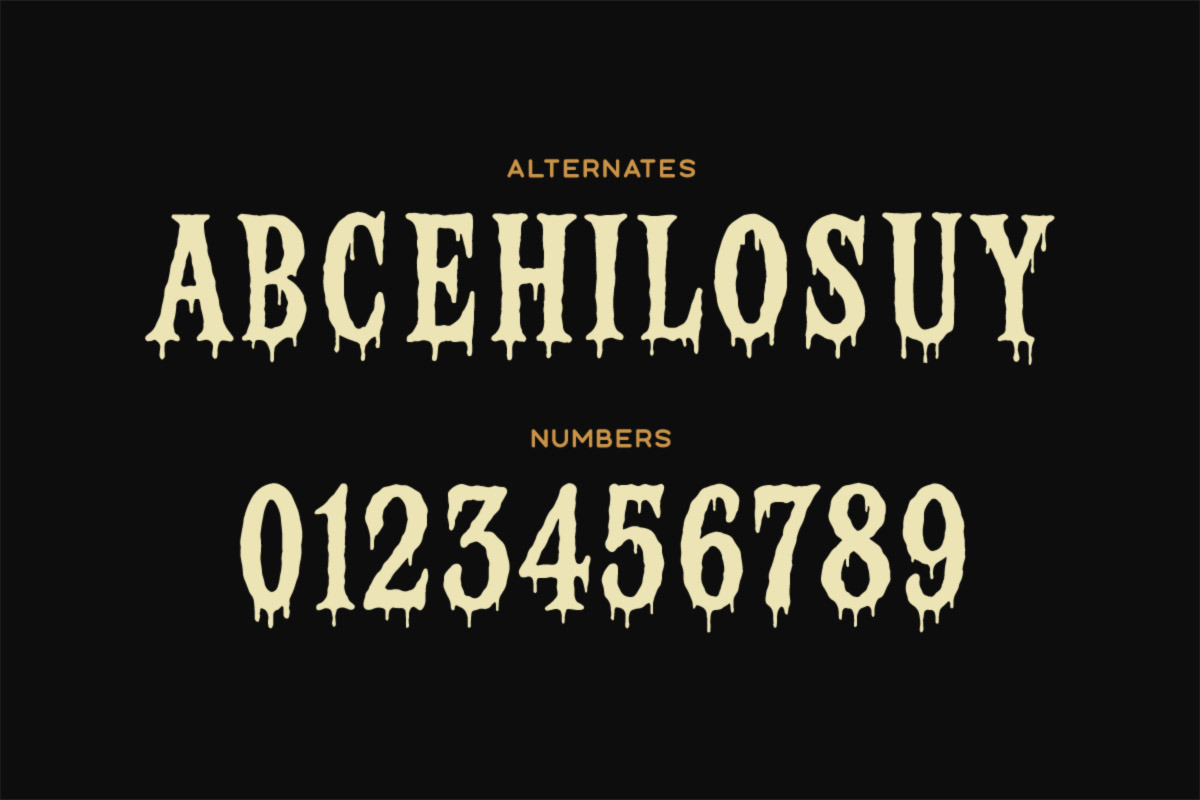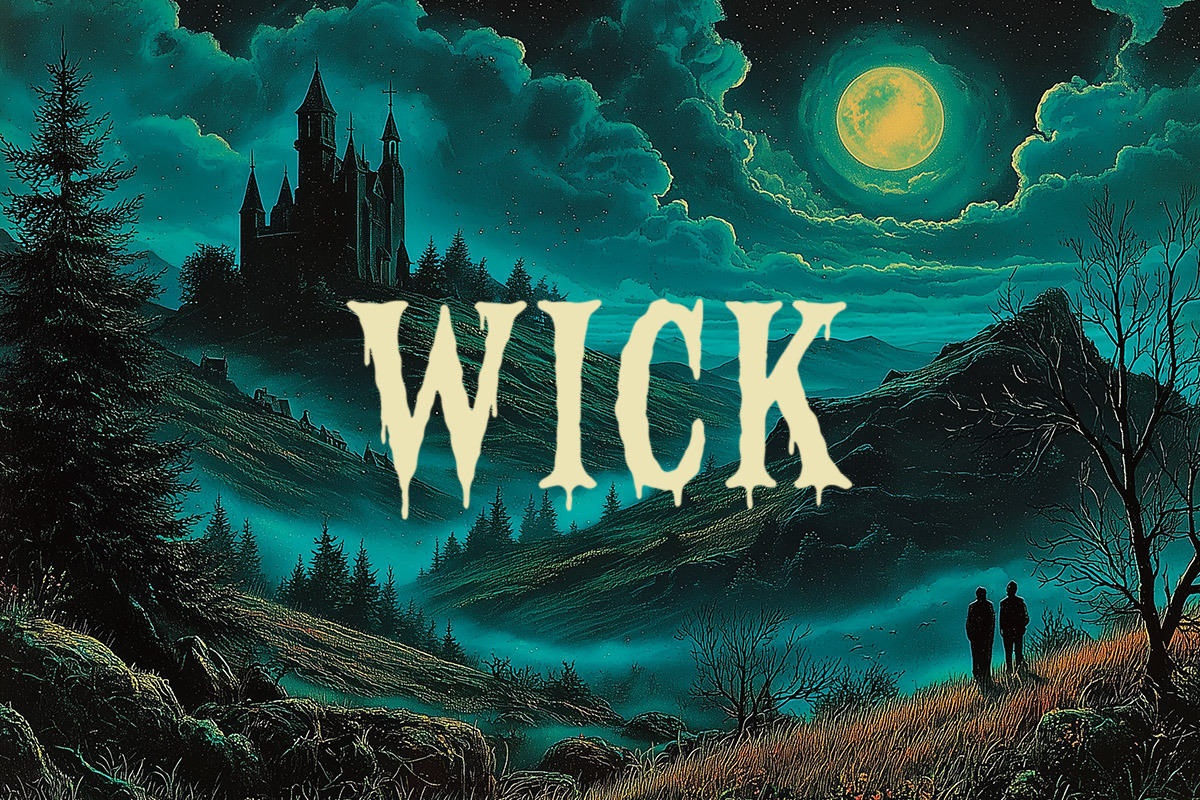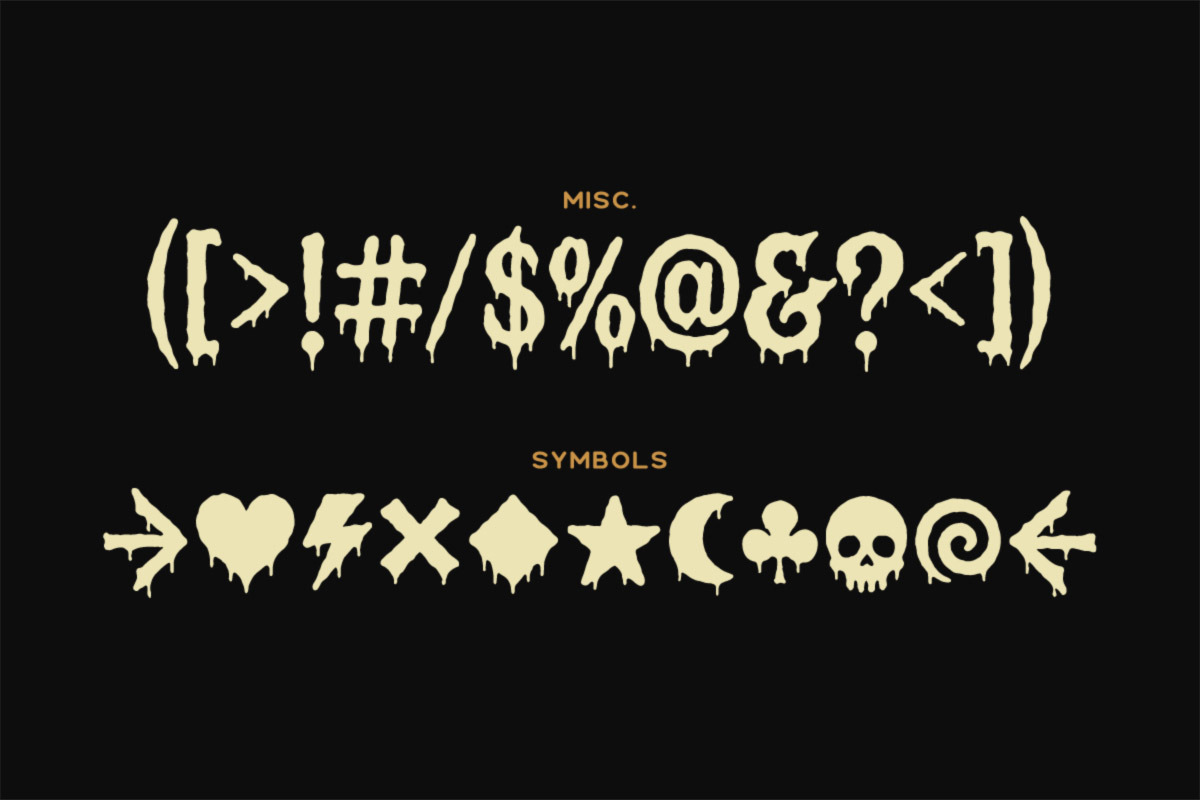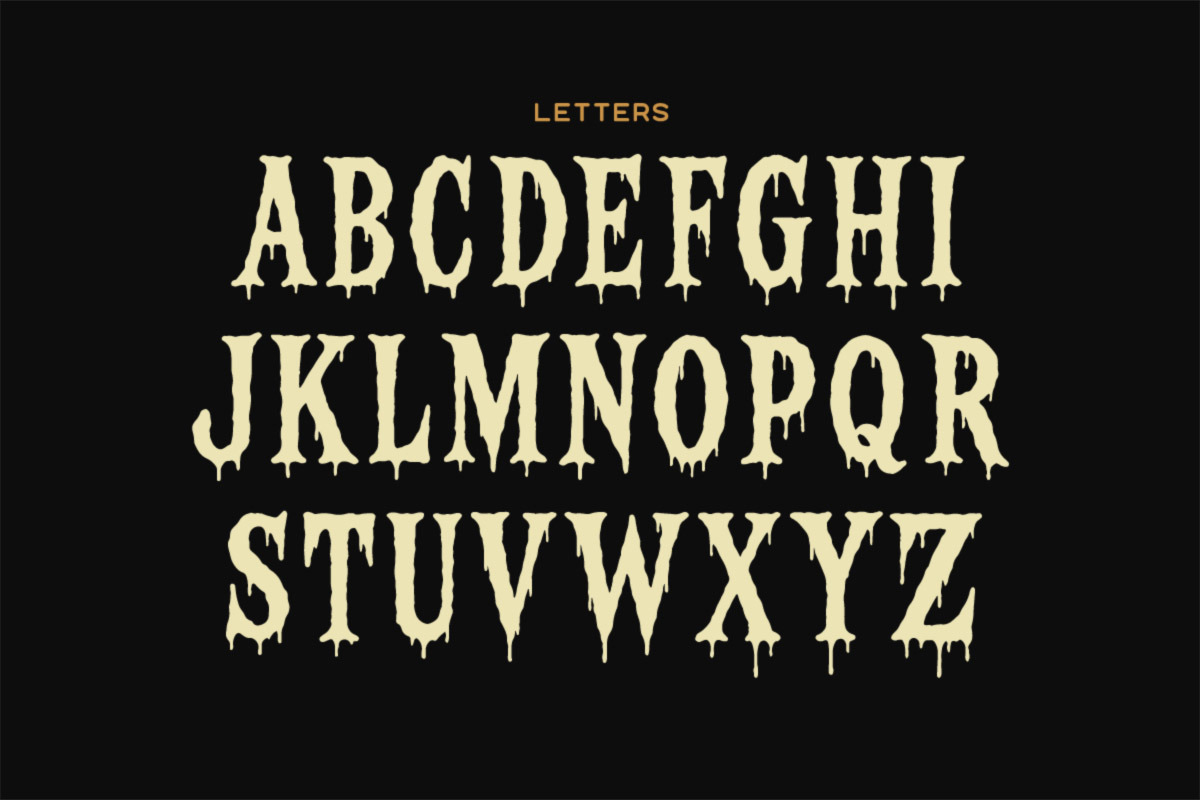
Wick Typeface
WICK is a drippy gothic display font inspired by vintage horror posters, haunted castles, and classic occult lettering. Its melting serifs, eerie silhouettes, and carved edges create a perfectly atmospheric typeface for spooky titles, dark fantasy artwork, Halloween branding, grim book covers, retro horror designs, and mystical storytelling. Includes alternates, numbers, punctuation, and a full set of themed symbols for extra creative impact.